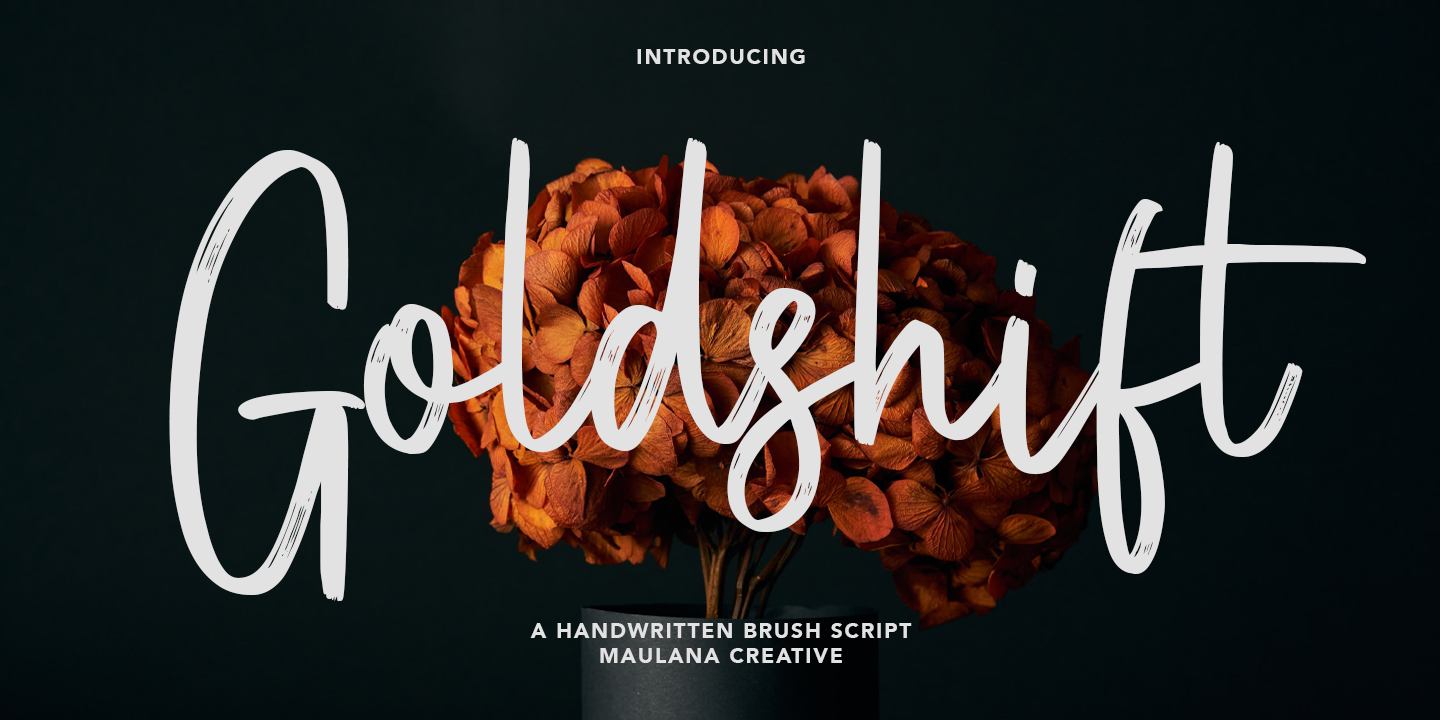
Goldshift Font is perfect for luxury jewelry brands, precious metals investment companies, high-end financial services, premium award ceremonies, exclusive gold mining corporations, upscale auction houses, and elite transformation coaching businesses. This opulent typeface embodies the value and prestige of gold while capturing dynamic change and premium evolution in sophisticated design projects.
What makes Goldshift Font exciting is its brilliant fusion of golden luxury and dynamic transformation that perfectly captures the essence of premium value creation and prestigious evolution. The font features fluid letterforms with metallic-inspired curves and shifting details that evoke both the lustrous beauty of pure gold and the dynamic energy of positive change. Its luxurious character attracts affluent audiences while maintaining excellent readability for both investment communications and luxury brand applications.
The Goldshift Font family includes multiple weights from light to bold, complete with gradient variations and precious metal ornamental elements. The character set features luxury ligatures, gold symbols, transformation alternates, and opulent decorative accents that enhance the font's prestigious appeal. Advanced OpenType features provide creative flexibility for international luxury brands and multilingual premium financial applications.
Whether you're designing luxury investment brands, creating premium transformation materials, or developing high-value marketing campaigns, Goldshift Font Free Download provides exceptional elegance and versatility. This prestigious typeface transforms ordinary text into valuable visual experiences that inspire success and prosperity while establishing distinguished brand recognition in competitive luxury financial and premium transformation marketplaces.